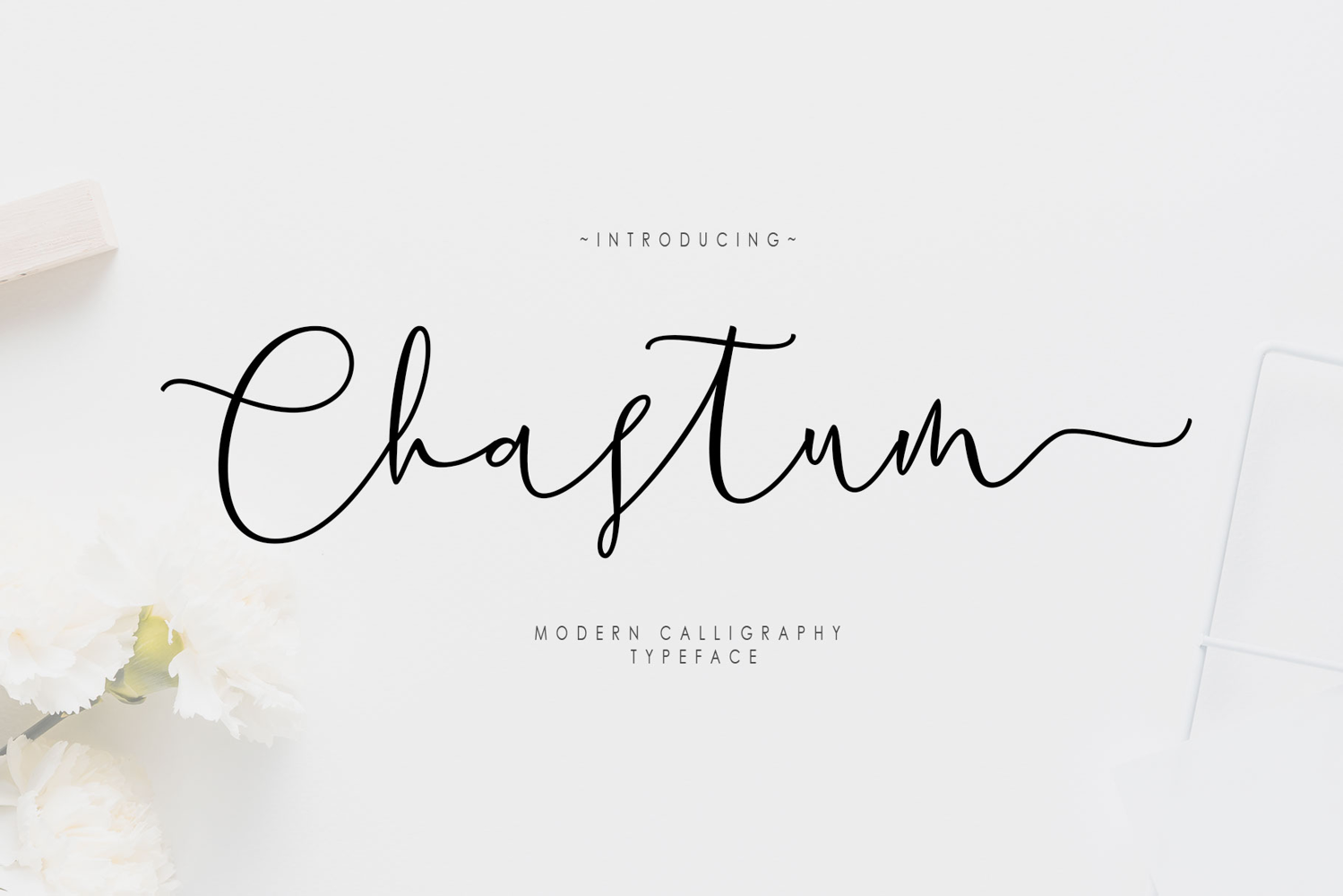
Chastum Script
Chastum is modern handwriting calligraphy, and has its own distinctive features with a feminine style. It is an extremely stylistic font, and one that can add a ton of romance and kindness to your creative projects.
Chastum Script